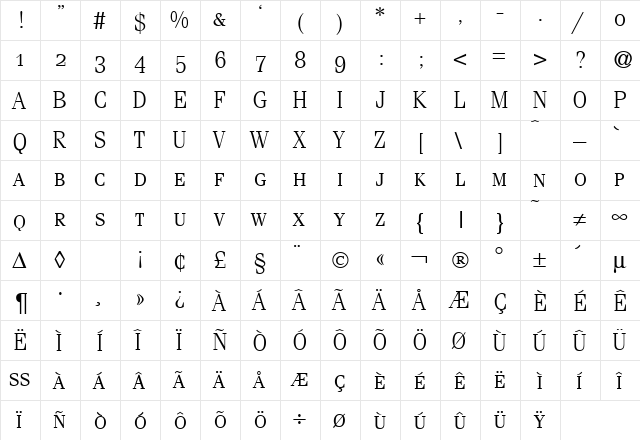
FerventSmc DB Regular Font Preview
FerventSmc DB Regular
FerventSmc DB Regular Font Details
Design Context for FerventSmc DB Typeface
FerventSmc DB offers clean, dependable letterforms without strong stylistic allegiance, making it a practical choice for designers who need flexibility.